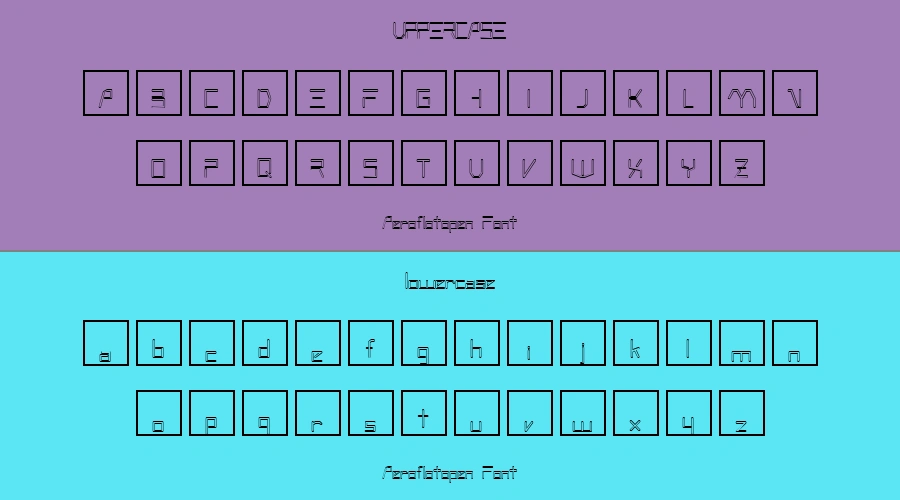
About Aeroflotopen Font
Designed with precision, Aeroflotopen Font merges flourishes with consistency in every character. This versatility makes it particularly effective for engineering specs, where longevity and reliability directly impact communication quality. Each letterform demonstrates meticulous craftsmanship.
Technical excellence shines through elements like open counters and contextual alternates, enhancing typographic versatility. In certification marks settings, Aeroflotopen Font proves its worth through superior brand recognition. The thoughtful execution of counter size and brand personality ensures professional results.